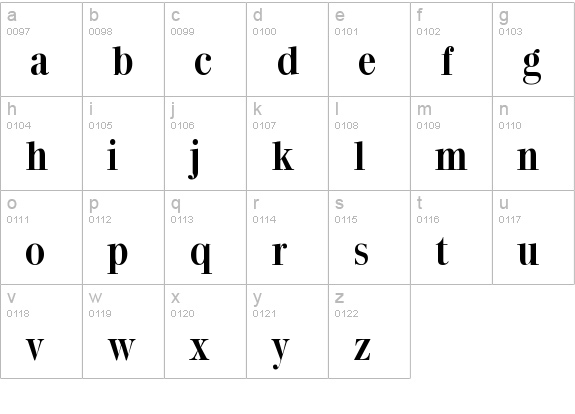
Quantas Regular is the standard, neutral variant in the Quantas typeface family \xE2\x80\x94 well suited to general body text, paragraphs, and standard typographic work.
Quantas Regular is a versatile and elegant font that exudes a sense of sophistication and modernity. Its clean and balanced letterforms make it the perfect choice for a wide range of design projects, from branding and advertising to editorial and web design. With its subtle curves and sharp edges, Quantas Regular strikes a harmonious balance between professionalism and creativity. Its legibility and readability make it an ideal choice for body text, while its unique personality shines through in larger headlines and titles. What sets Quantas Regular apart is not only its aesthetic appeal, but also the fact that it is freely available to download at FontsMarket.com. This means that designers and creatives can access this exceptional font without having to worry about any licensing restrictions or fees. Whether you're working on a personal project or a commercial endeavor, Quantas Regular offers the versatility and flexibility to bring your visions to life. Its timeless design and wide range of weights make it suitable for any design application, ensuring that your message will be conveyed with clarity and style. So why wait? Elevate your designs with the elegance and versatility of Quantas Regular, and unlock your creative potential. Download this remarkable font for free at FontsMarket.com and start creating stunning designs that leave a lasting impression.